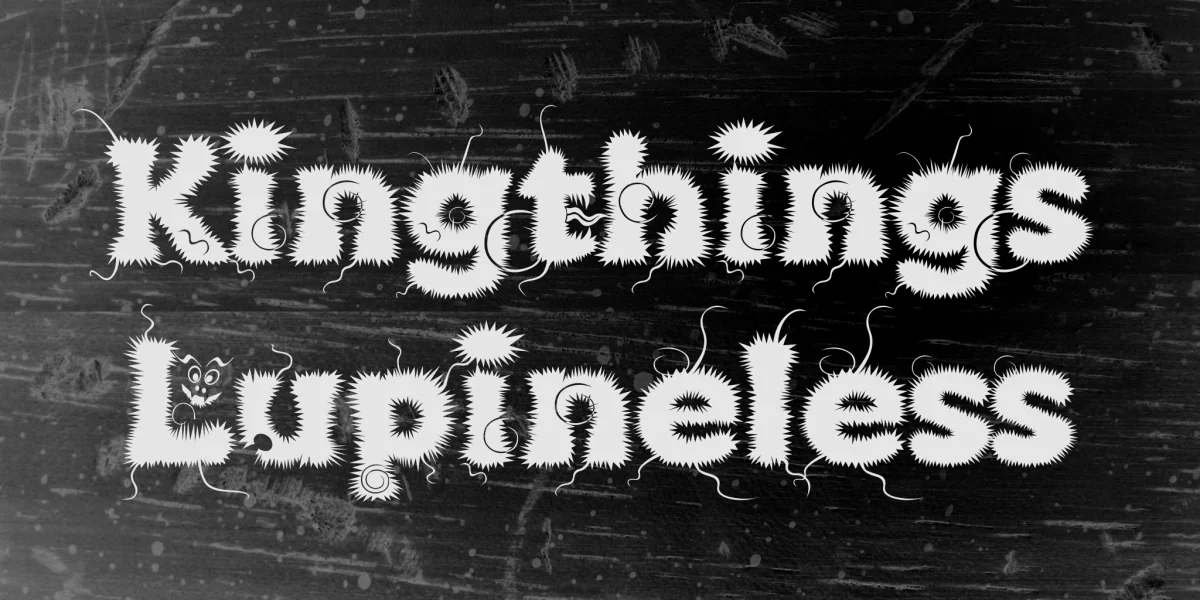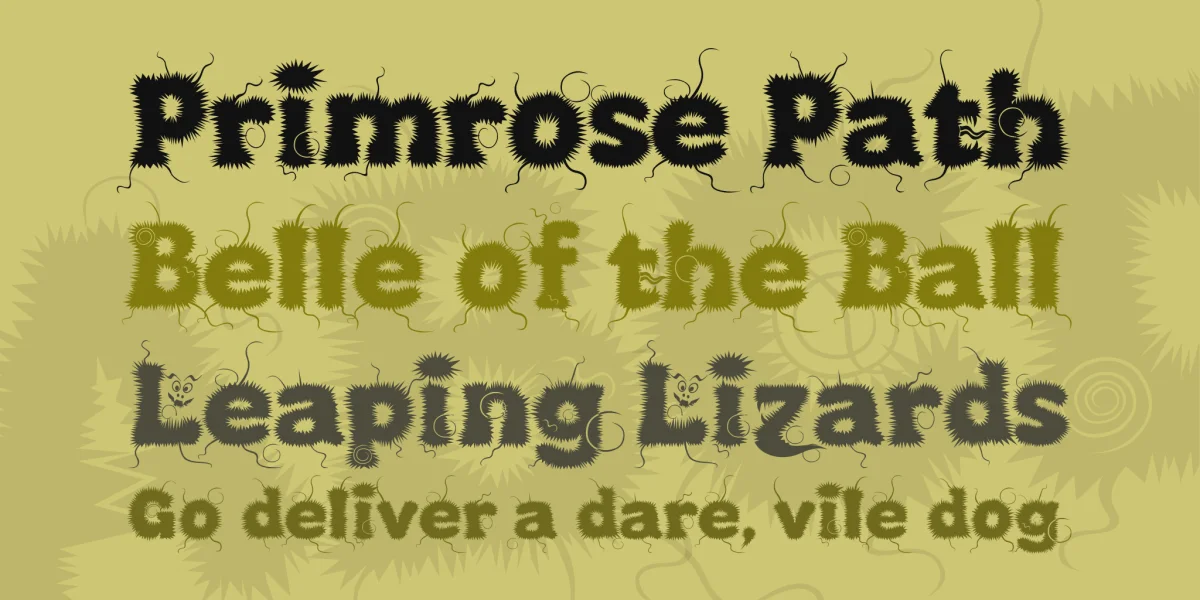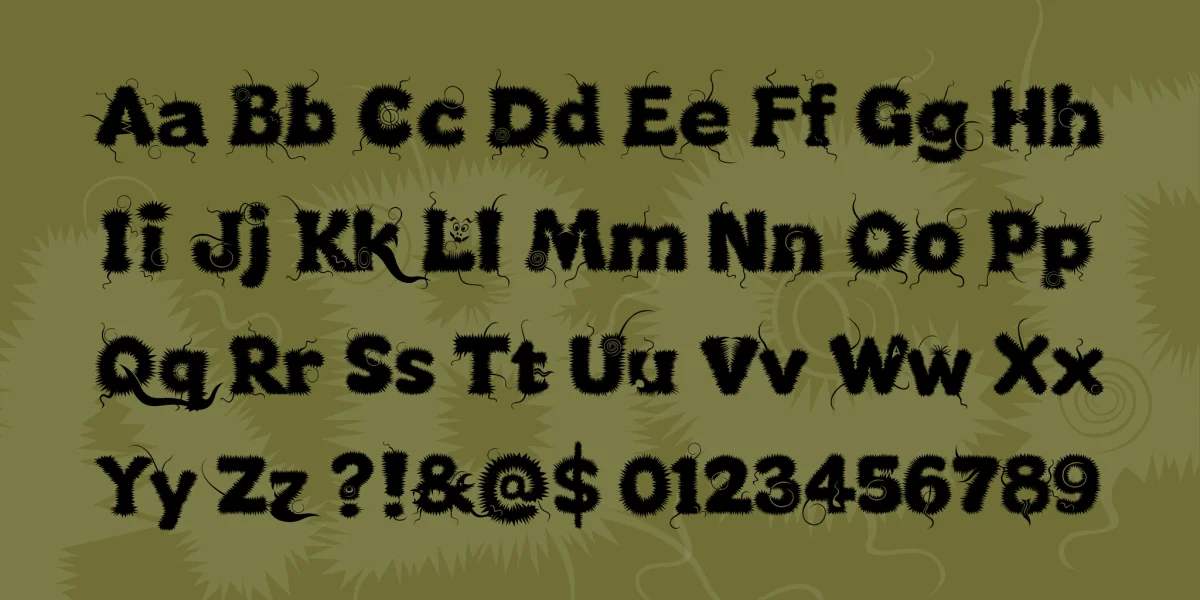
Kingthings Lupineless Font
Did I say I can if I want to? Well I made this for a character in a Terry Pratchett Book - Reaper Man - He's called Lupine and is getting very fond of a girl called Ludmilla - Her mother is Mrs Cake... Don't ask about Mrs Cake. To help you not to ask about Mrs Cake, The clergy holds that speaking to the dead is blasphemy and abomination - Mrs Cake holds that it's only common courtesy. I digress - sorry. He's a werewolf, It's a hairy font. Do not call it Kingthings Pube.